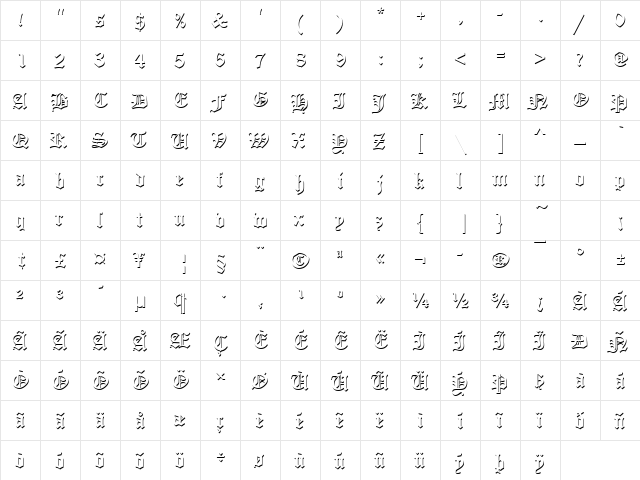
OldEnglishOnlShaD Regular
Design Context for OldEnglishOnlShaD Typeface
OldEnglishOnlShaD is a composed and adaptable typeface that performs quietly and consistently across a wide range of design contexts.